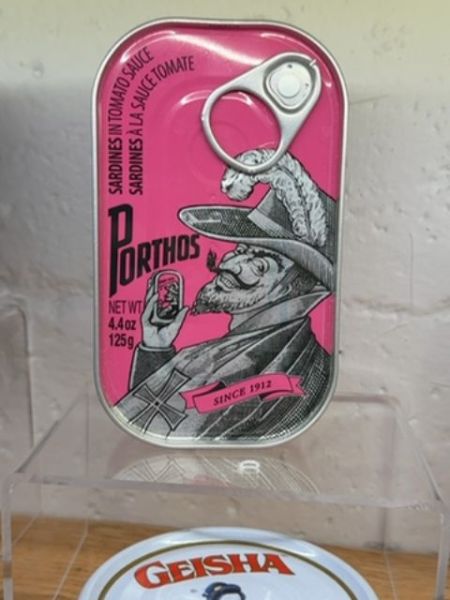
Porthos
Sardines in tomato sauce, known for their rich flavor and quality.
1912
Portugal
The typography on the packaging uses a bold, serif font for the brand name 'Porthos', emphasizing its heritage and tradition. Other text is in a simple, sans-serif font for clarity, ensuring readability against the bright background.
The packaging is a vibrant pink tin with a detailed illustration of a musketeer holding the same tin. The can features a pull-tab for easy opening and striking graphics that are both bold and vintage in style.
- Porthos sardines are a staple in Portuguese cuisine.
- The brand has been producing sardines since 1912.
- The tomato sauce adds a unique tangy flavor to the sardines.